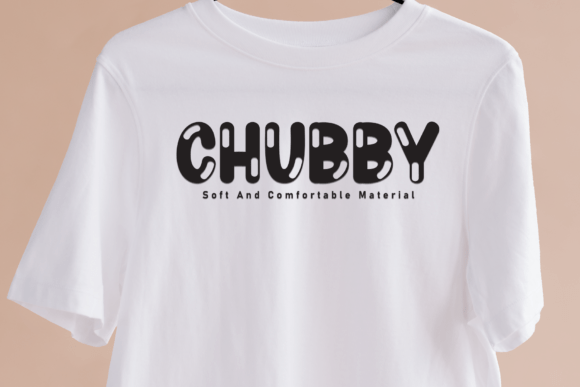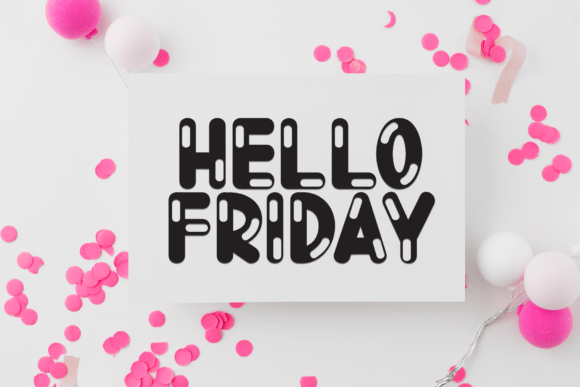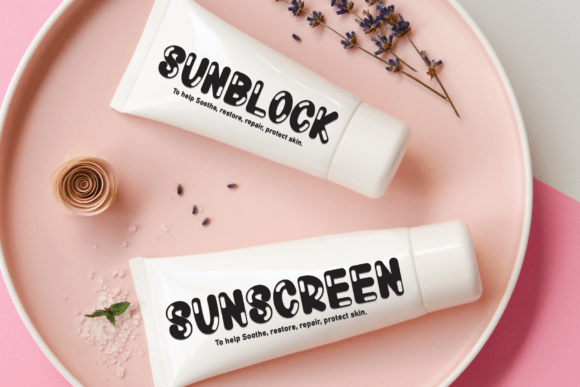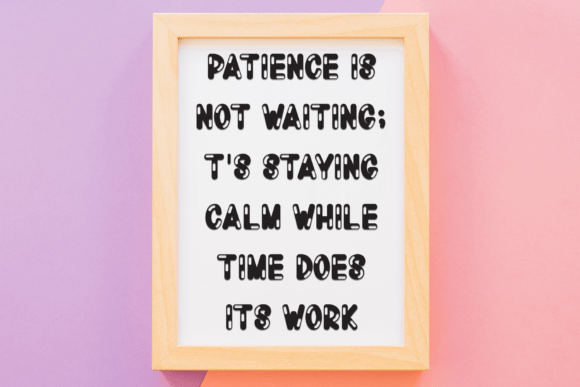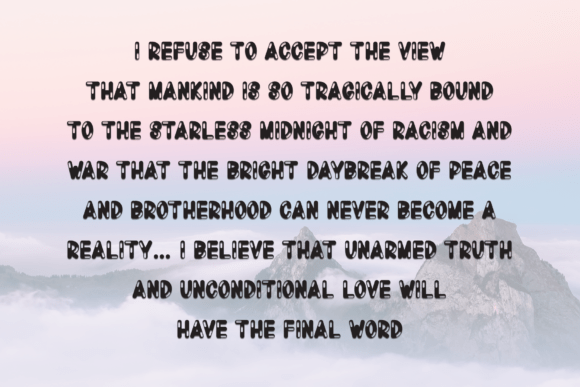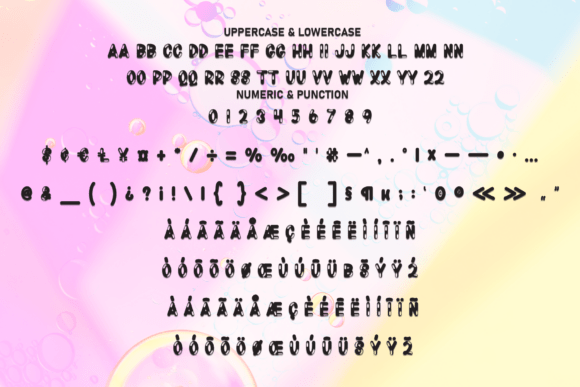
Introducing Colour Bubbly Font: The Ultimate Choice for Playful and Vibrant Designs
Are you looking for a font that can add a touch of joy and whimsy to your designs? Look no further than Colour Bubbly, a vibrant display font that is sure to capture the imagination of your audience. With its ultra-bold, rounded letterforms and charming white “glimmer” cutouts, this typeface is perfect for creating eye-catching designs that pop with personality.
A Font that Embodies Joy and Effervescence
Colour Bubbly is more than just a font – it’s an experience. Its joyful and effervescent soul is palpable in every letterform, making it the perfect choice for designs that need to convey a sense of fun and playfulness. Whether you’re creating branding for an independent toy store, designing invitations for a children’s birthday party, or crafting graphics for a summer camp, Colour Bubbly is the premier choice for adding a touch of magic to your designs.
Unique Features of Colour Bubbly Font
So, what sets Colour Bubbly apart from other fonts? Here are just a few of its unique features:
- Ultra-bold, rounded letterforms: Colour Bubbly features letterforms that are not only bold but also rounded, giving them a friendly and approachable feel.
- Charming white “glimmer” cutouts: The white “glimmer” cutouts add instant dimension to the letterforms, giving them a shiny and reflective appearance that’s reminiscent of soap bubbles.
- Heavy weight and playful hand-drawn rhythm: The heavy weight of the font, combined with its playful hand-drawn rhythm, makes it perfect for creating high-impact designs that grab attention.
Use Cases for Colour Bubbly Font
Colour Bubbly is a versatile font that can be used in a variety of design projects. Here are just a few ideas to get you started:
- Independent toy store branding: Colour Bubbly is the perfect choice for creating a brand identity that’s fun, playful, and engaging.
- Children’s birthday party invitations: Add a touch of whimsy and excitement to your party invitations with Colour Bubbly.
- Summer camp graphics: Create eye-catching graphics for your summer camp that capture the spirit of adventure and fun.
- High-impact “pop-art” social media headers: Use Colour Bubbly to create social media headers that pop with personality and grab attention.
Why Choose Colour Bubbly Font?
With so many fonts to choose from, why should you choose Colour Bubbly? Here are just a few reasons:
- Unique and eye-catching design: Colour Bubbly is a one-of-a-kind font that’s sure to grab attention and make your designs stand out.
- Versatile and adaptable: Colour Bubbly can be used in a variety of design projects, from branding and advertising to packaging and web design.
- Easy to read and understand: Despite its bold and playful design, Colour Bubbly is easy to read and understand, making it perfect for use in a variety of contexts.
In conclusion, Colour Bubbly is a vibrant display font that’s perfect for designers and crafters looking to add a touch of joy and whimsy to their designs. With its ultra-bold, rounded letterforms, charming white “glimmer” cutouts, and playful hand-drawn rhythm, this typeface is sure to capture the imagination of your audience and make your designs pop with personality. So why wait? Try Colour Bubbly today and see the difference it can make in your designs!